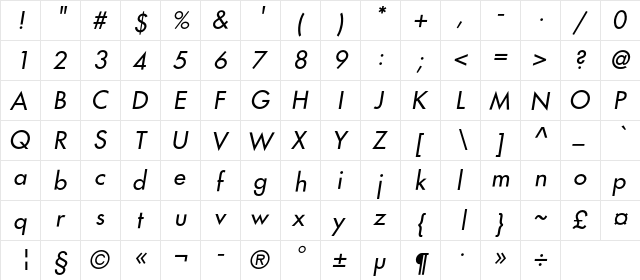
FavoritC Italic
Design Context for FavoritC Typeface
FavoritC offers clean, dependable letterforms without strong stylistic allegiance, making it a practical choice for designers who need flexibility. Its italic angle brings a sense of urgency and motion to the letterforms.
Pro Tip: Try FavoritC for annotation and caption copy alongside an upright companion — the contrast in angle creates a dynamic but ordered typographic system.